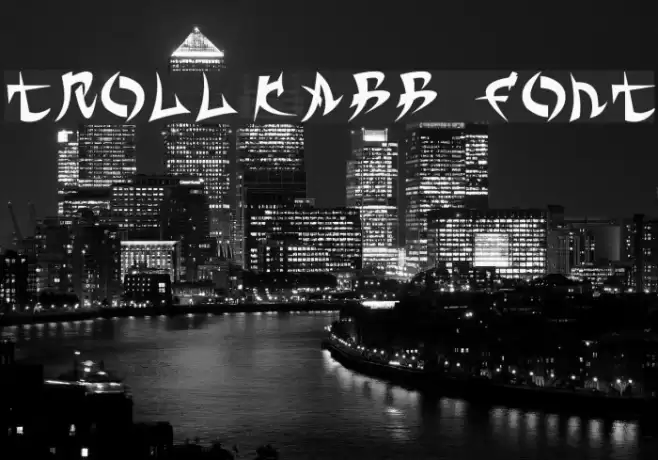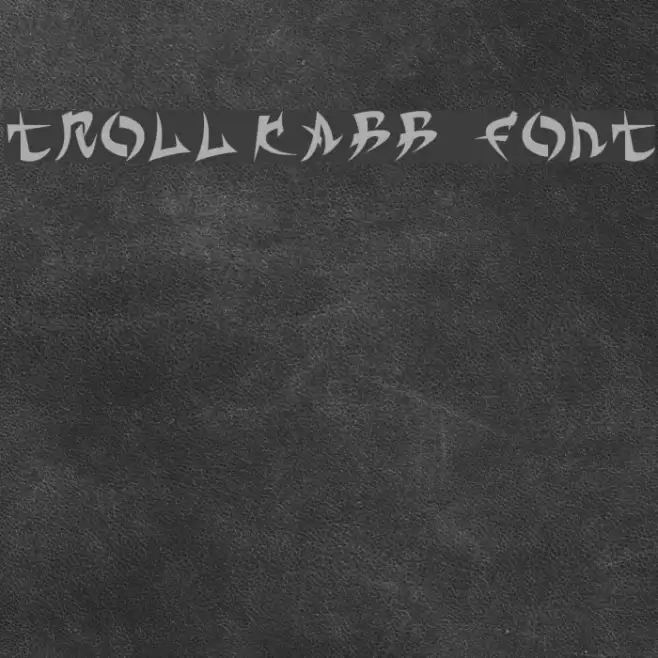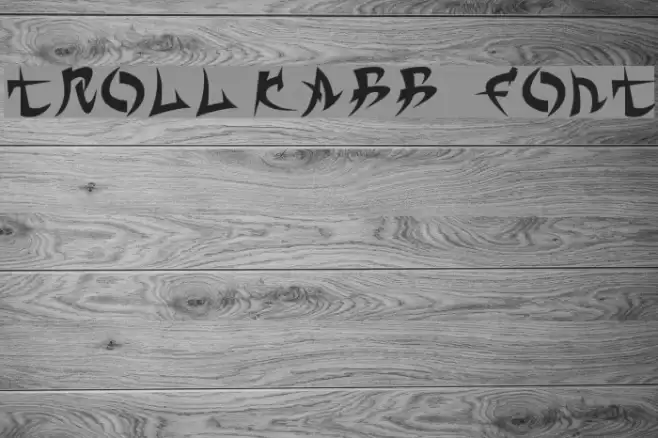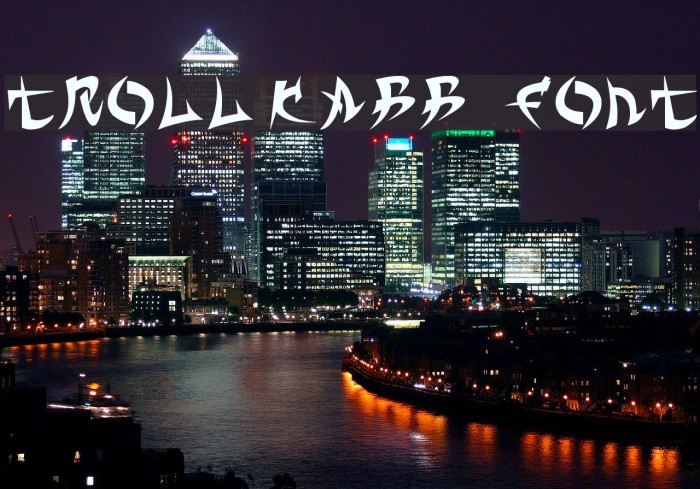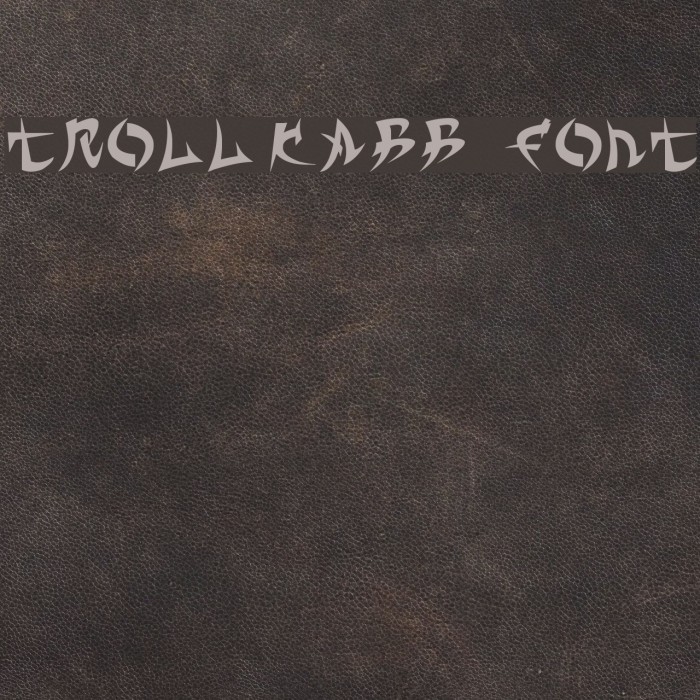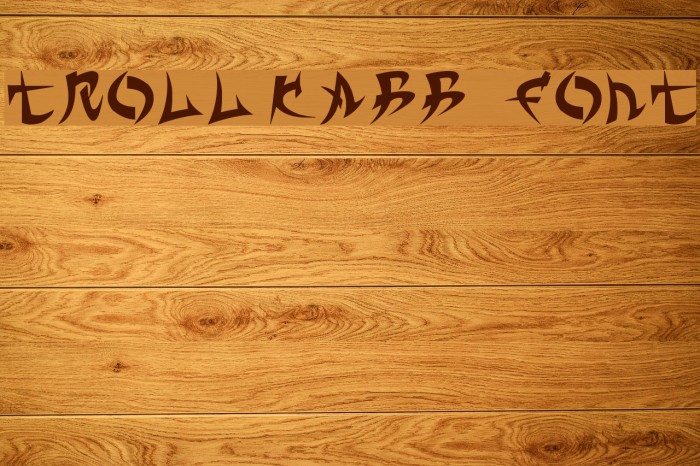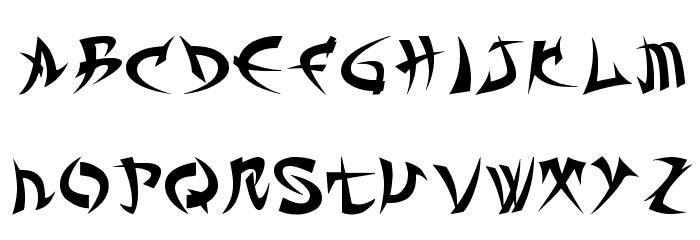
TROLL KABBç FONT Font
TROLL KABBç FONT Description
This font features a bold and edgy design with sharp, angular lines and a distinctive, aggressive style. The characters are highly stylized, with exaggerated serifs and unique shapes that give it a dynamic and energetic appearance. The uppercase and lowercase letters maintain a consistent theme, with a strong emphasis on diagonal strokes and pointed terminals. Numbers and special characters are designed to match the overall aesthetic, ensuring a cohesive look across all glyphs. This font is ideal for projects that require a bold, attention-grabbing typeface with a modern and rebellious flair.
A bold, edgy font with sharp, angular lines and a dynamic style from Graffiti fonts.
- Proposed Projects: Perfect for music album covers, video game titles, posters, and branding that requires a strong, rebellious look.
- Overall Style: Modern, Aggressive